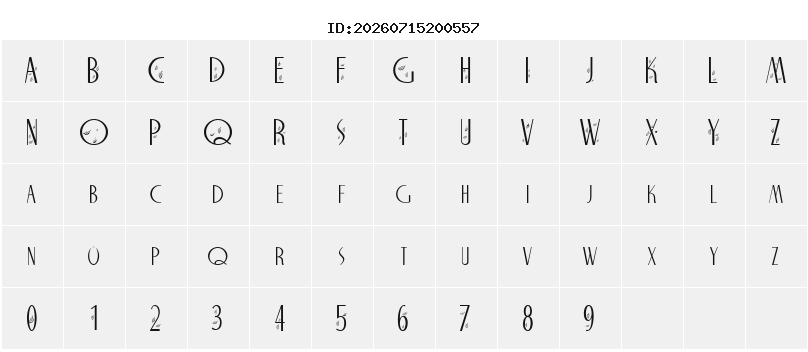
• Font Name: Autumn Nights
• Copyright: base font was NightClub .. falling leaves added by JimDan Made for Robin in Only_Fonts@yahoogroups.com 09/06/2002
Autumn Nights.ttf is a modern, elegant sans-serif font designed for ultimate readability and visual harmony. Perfect for branding, headlines, web design, and print materials.